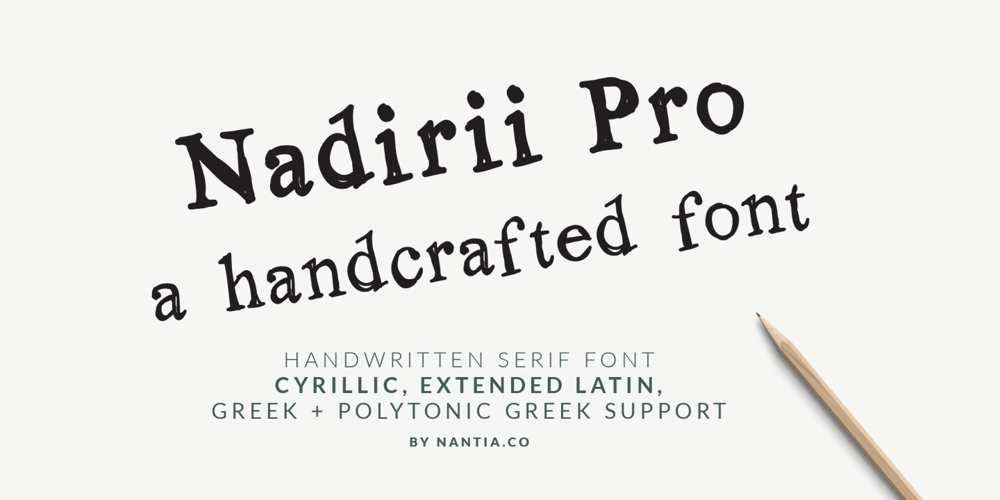
Nadirii Pro Font Family was designed by Konstantina Louka and published by Nantia.co. Nadirii Pro contains 1 styles and family package options. Nadirii Pro Greek Cyrillic Font is a fun display typeface with a nostalgic touch. In fact, this typeface supports over 30 languages and it can be a perfect match for all your food packaging projects. Of course, you can use it for organic handcrafted products branding. Also, it can be an ideal tool for storytellers, too! In other words, the crafty feeling of this font is pairing perfectly with illustrations, book covers and handmade social media content.In addition, Nadirii Pro Font supports extended Greek diacritics or Polytonic Greek. Therefore, this feature is perfect for writing Byzantine, Katharevousa and Greek-Orthodox texts, with a modern twist.